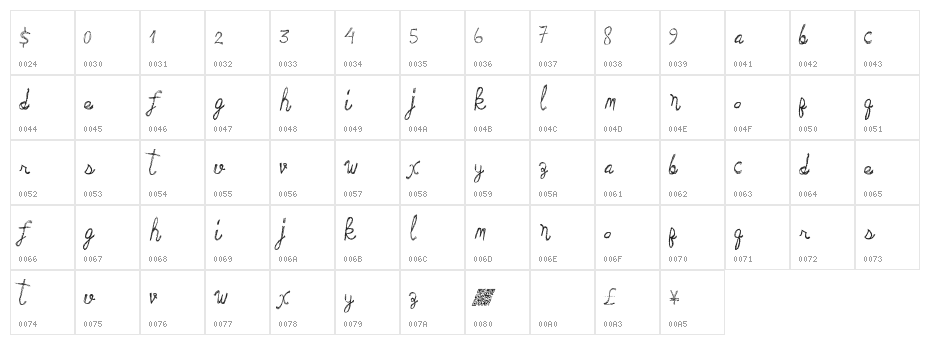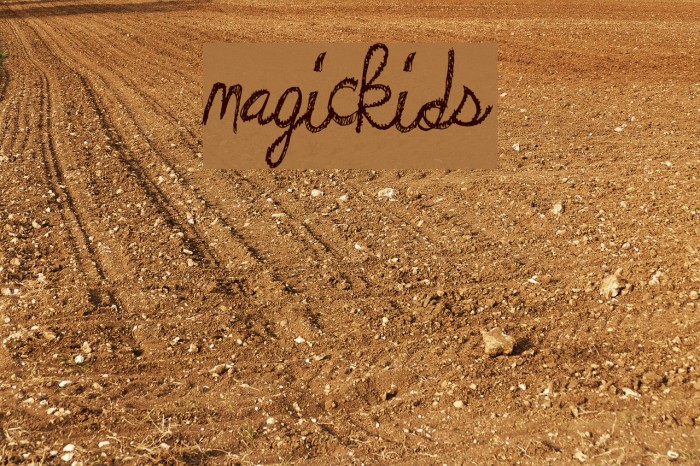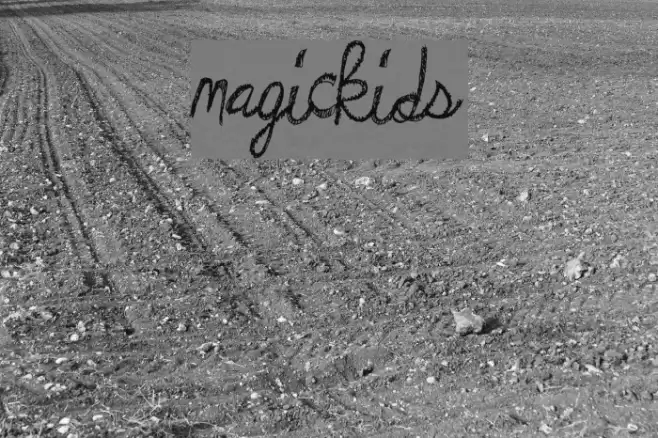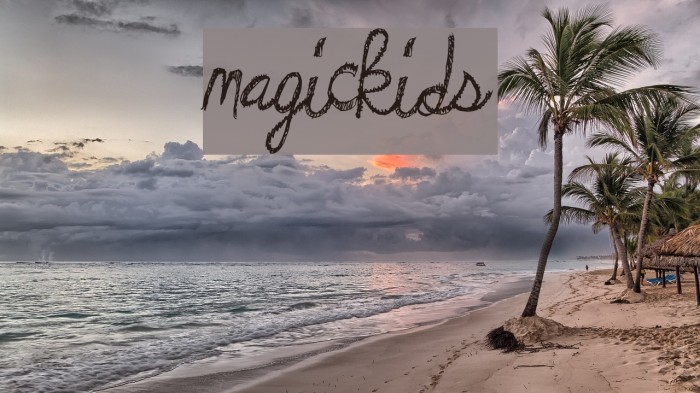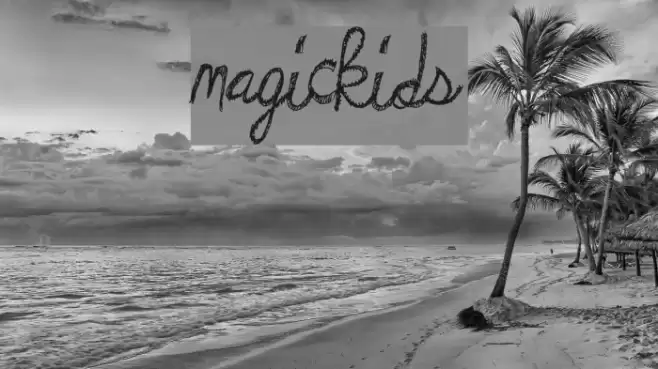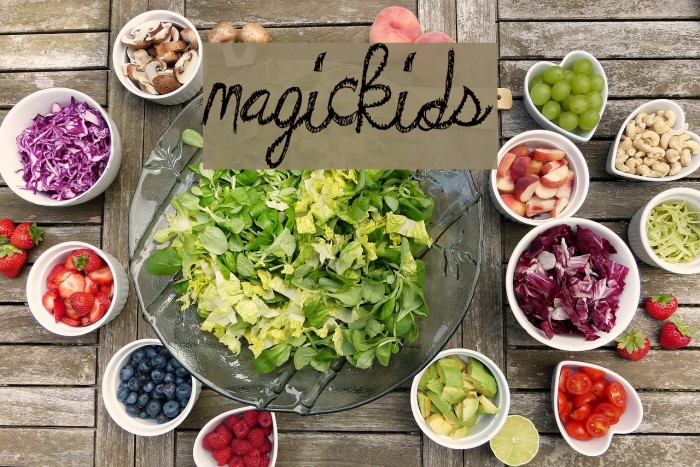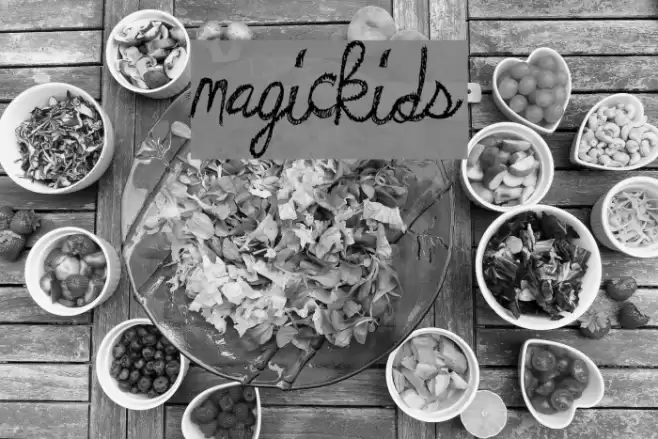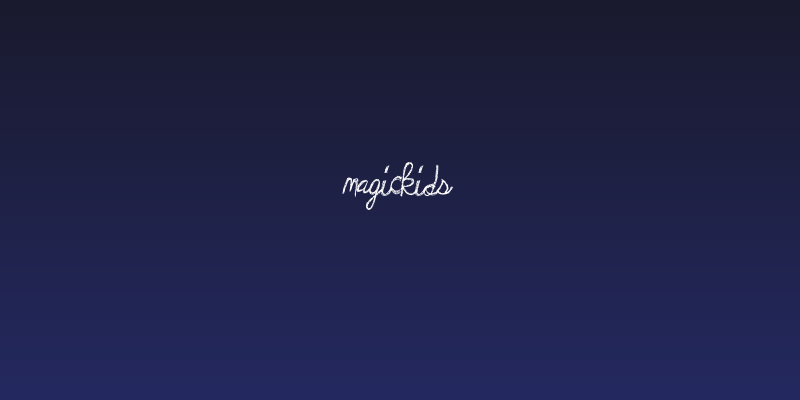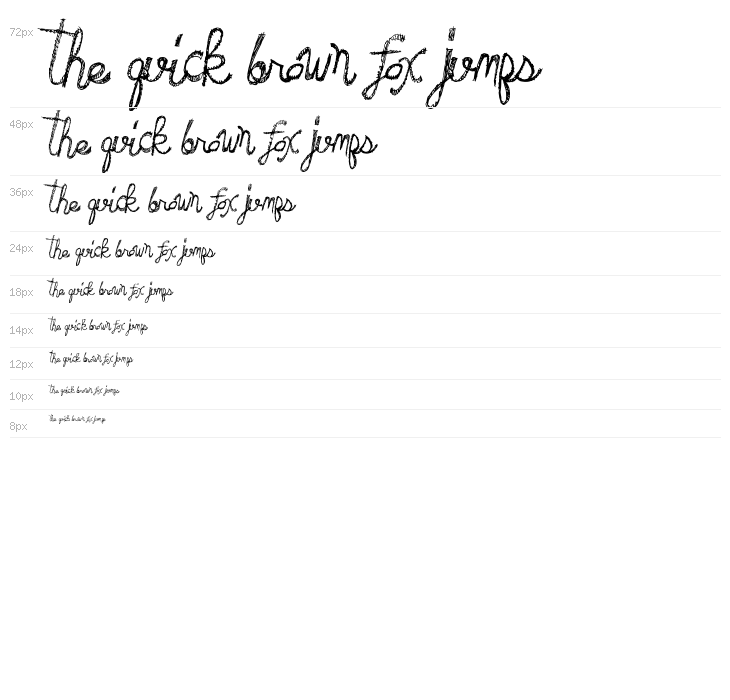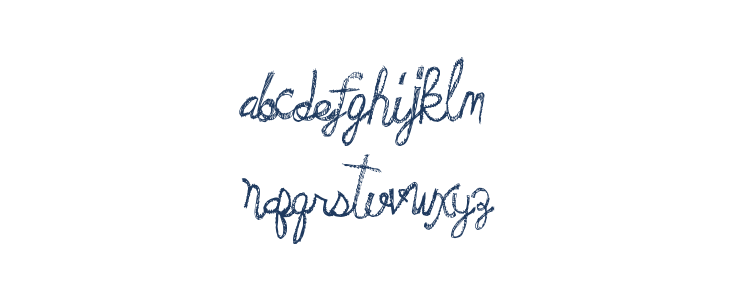
MagicKids Font
MagicKids Description
This playful and whimsical font features a hand-drawn, sketch-like appearance with a casual and friendly vibe. The letters are slightly slanted, giving it a dynamic and lively feel. Each character is uniquely crafted with uneven strokes, adding to its charm and making it ideal for projects that require a personal touch. The font maintains a consistent flow, with smooth connections between letters, enhancing its handwritten style. Its informal nature makes it perfect for creative and fun designs, appealing to both children and adults. The numbers are equally playful, maintaining the same sketchy aesthetic as the letters.
| Overall Style | Whimsical |